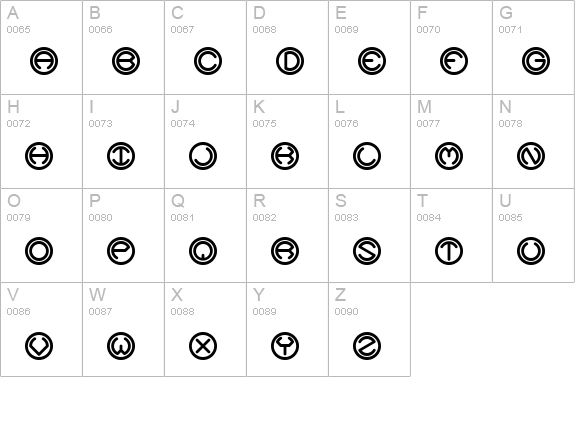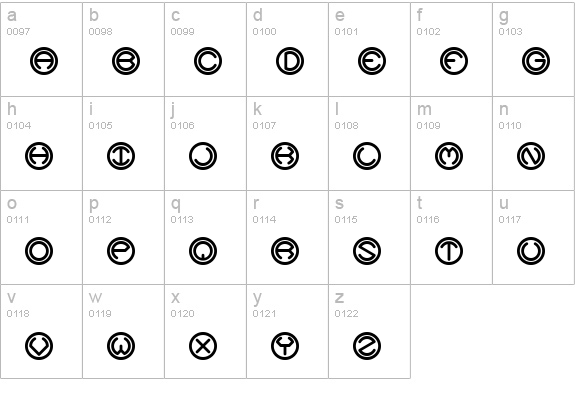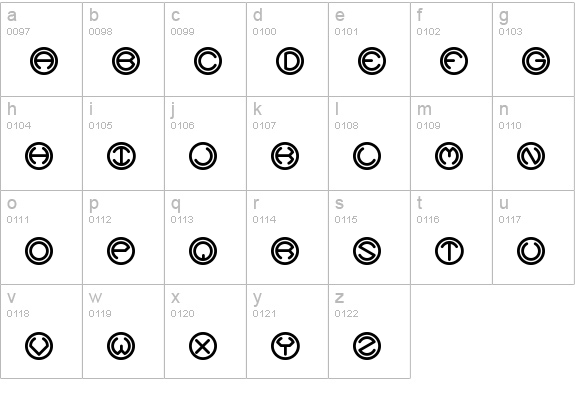
Spheroids BRK Font Details
Spheroids BRK font is a unique and eye-catching typeface that is sure to make a statement in any design project. With its rounded edges and bold, geometric shapes, this font is perfect for adding a modern and futuristic touch to your designs. This font is not only visually appealing, but also highly versatile. Whether you're designing a logo, creating a poster, or just adding some flair to a social media post, Spheroids BRK font is sure to impress. And the best part? It's completely free! That's right, Spheroids BRK font is freely available to download at FontsMarket.com. So you can enhance your designs without breaking the bank. With its sleek and contemporary aesthetic, Spheroids BRK font is perfect for a wide range of design projects. It adds a fresh and dynamic look to any text, making it stand out from the crowd. So why wait? Download Spheroids BRK font today and elevate your designs to a whole new level. With its free availability at FontsMarket.com, you have nothing to lose and everything to gain. Don't miss out on this opportunity to enhance your designs with this stunning font.